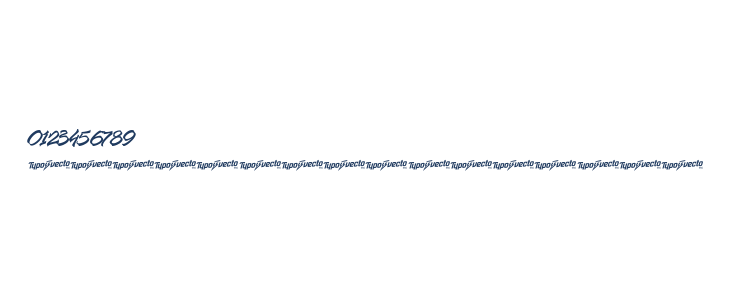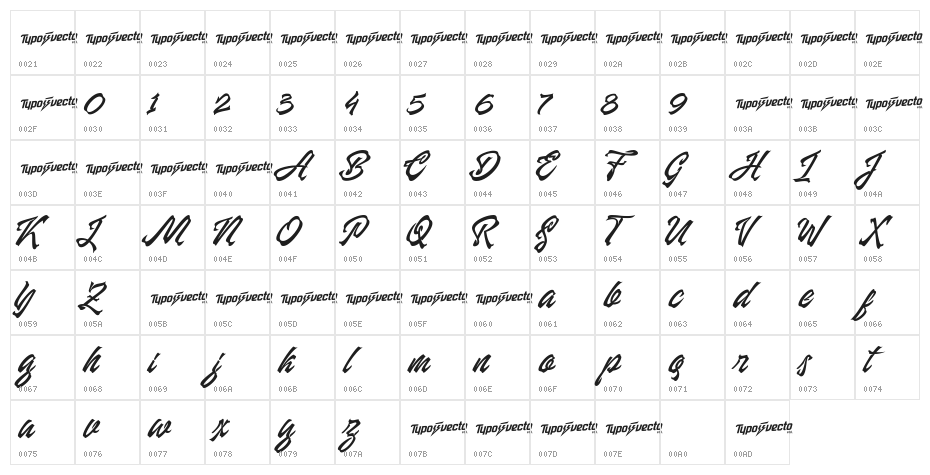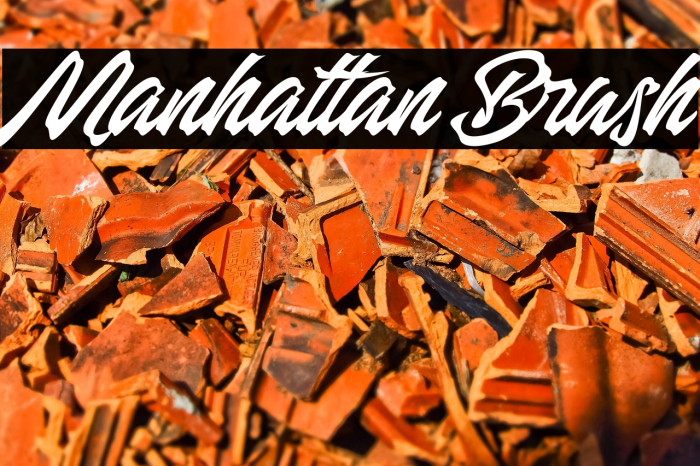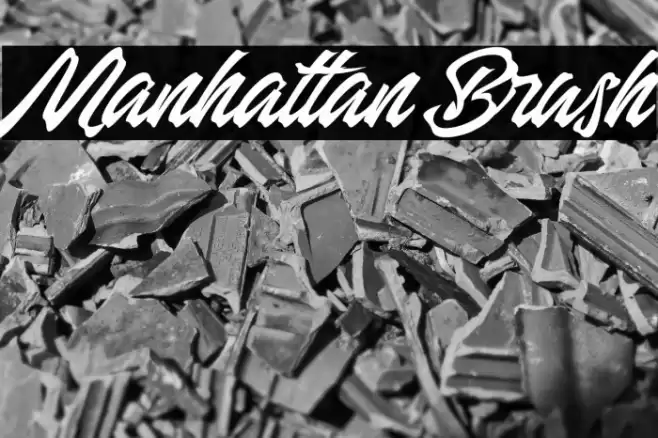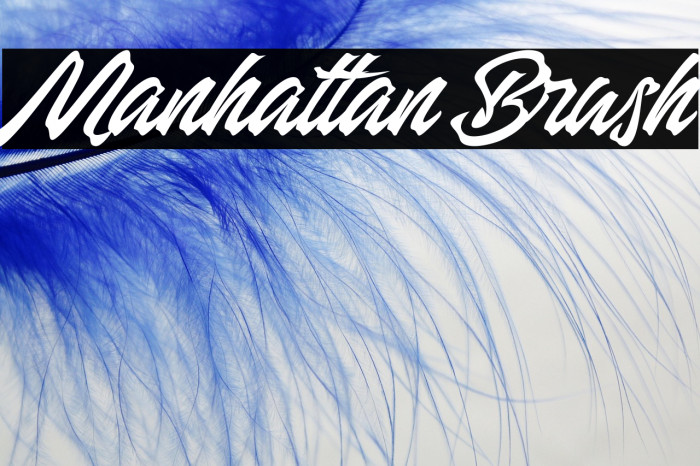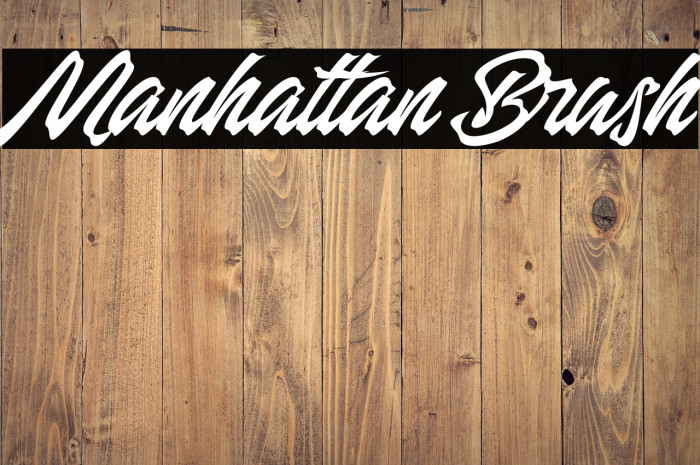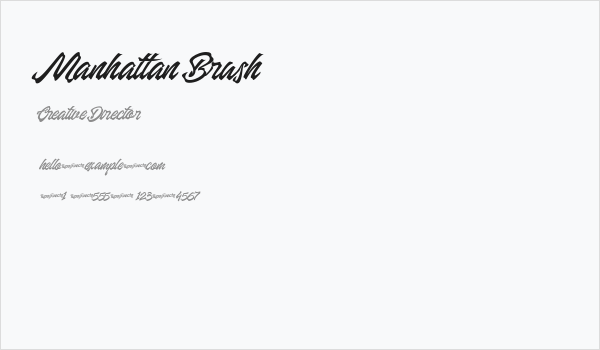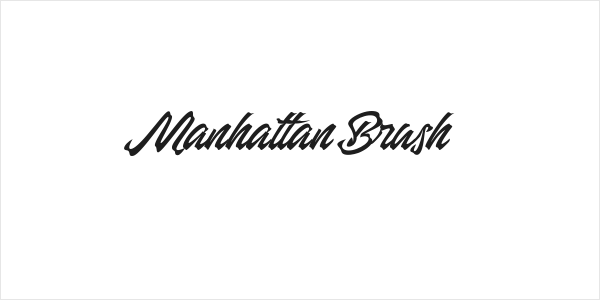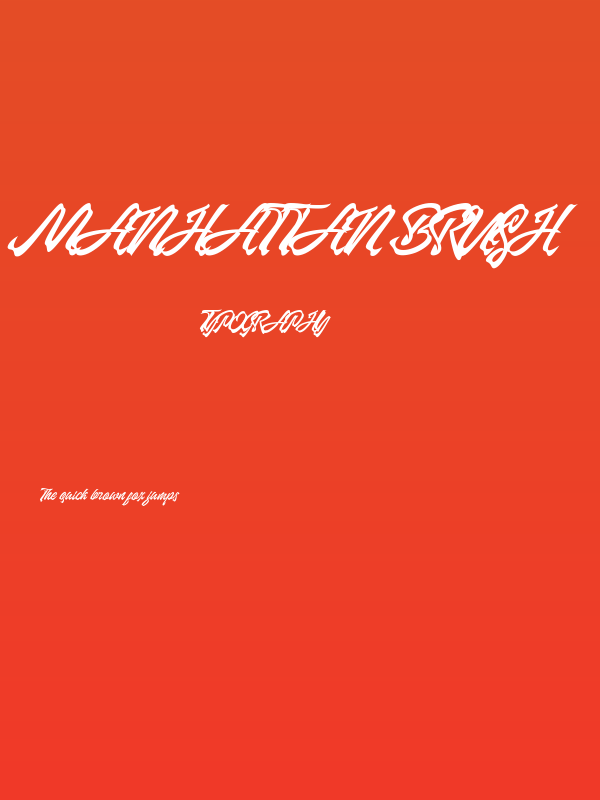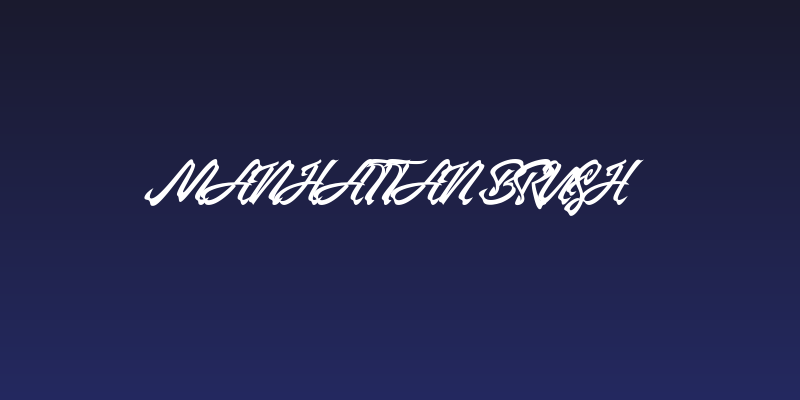
Manhattan Brush Font
Manhattan Brush Description
This font exudes a bold and dynamic brush script style, characterized by its fluid and energetic strokes. The letters are interconnected, creating a sense of movement and rhythm. The uppercase characters are particularly striking, with exaggerated flourishes and a sense of grandeur. The lowercase letters maintain a consistent flow, enhancing readability while retaining an artistic flair. The numbers are equally expressive, matching the overall style of the alphabet. This font is perfect for projects that require a touch of elegance and creativity, such as branding, invitations, and artistic designs.
| Use Case | Logos, Headlines, Artistic designs |
| Proposed Projects | Ideal for branding, invitations, artistic designs, and creative projects. |